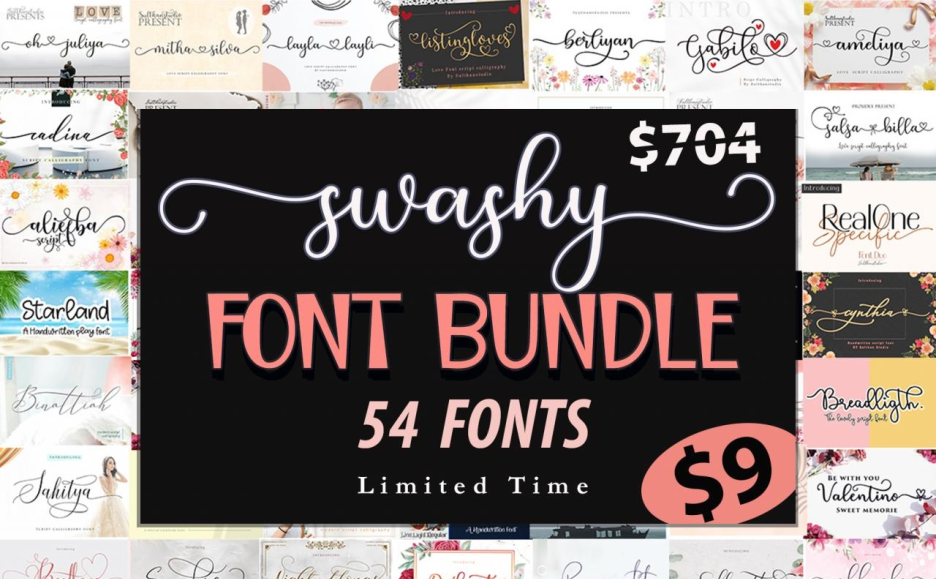
Swashy Font Bundle
The Swashy Font Bundle offers a captivating collection of fonts designed to bring elegance and flair to your projects. This bundle includes a variety of swashy styles, perfect for creating eye-catching designs that stand out.
• Multiple font styles with unique swashes
• Variety of weights for versatile usage
Each font in this bundle is crafted with attention to detail, ensuring that your text looks stunning whether used in print or digital formats. The swashes add a decorative touch, making them ideal for invitations, branding, and more.
Utilize these fonts for logo design, social media graphics, and any project that requires a touch of sophistication. Experiment with different weights and styles to find the perfect combination for your needs.